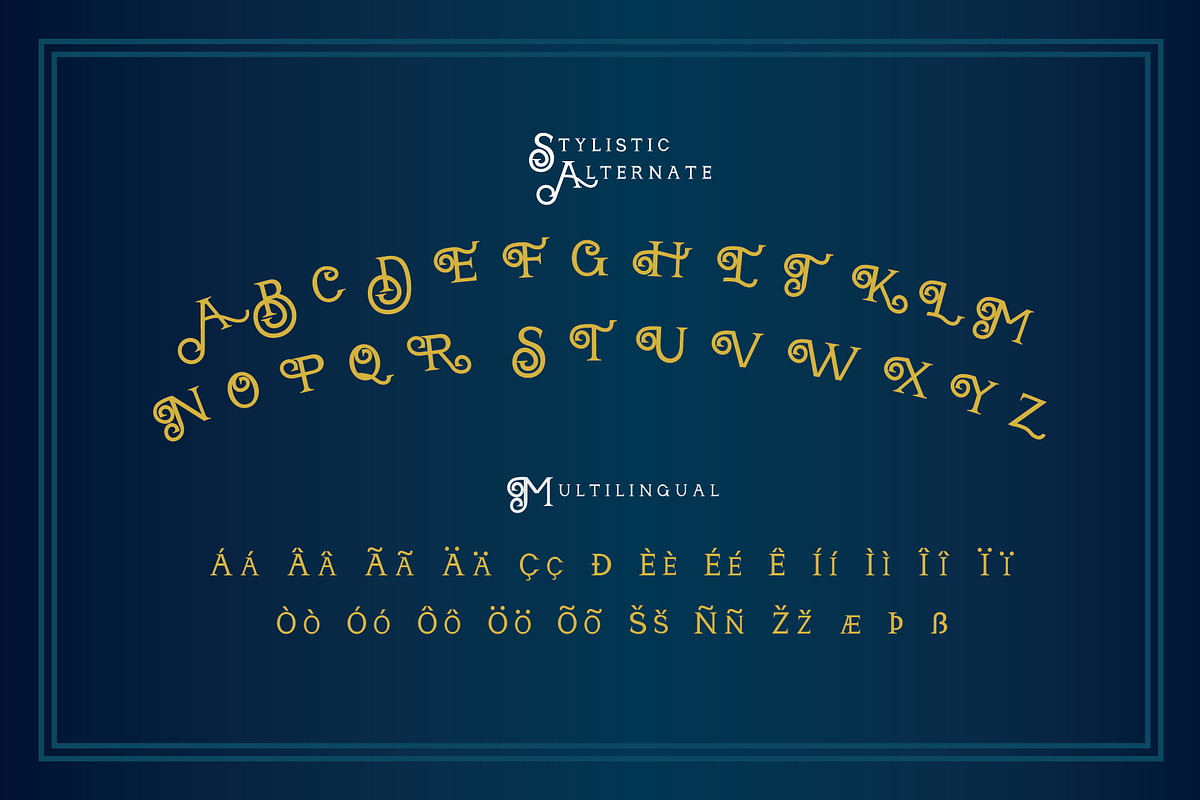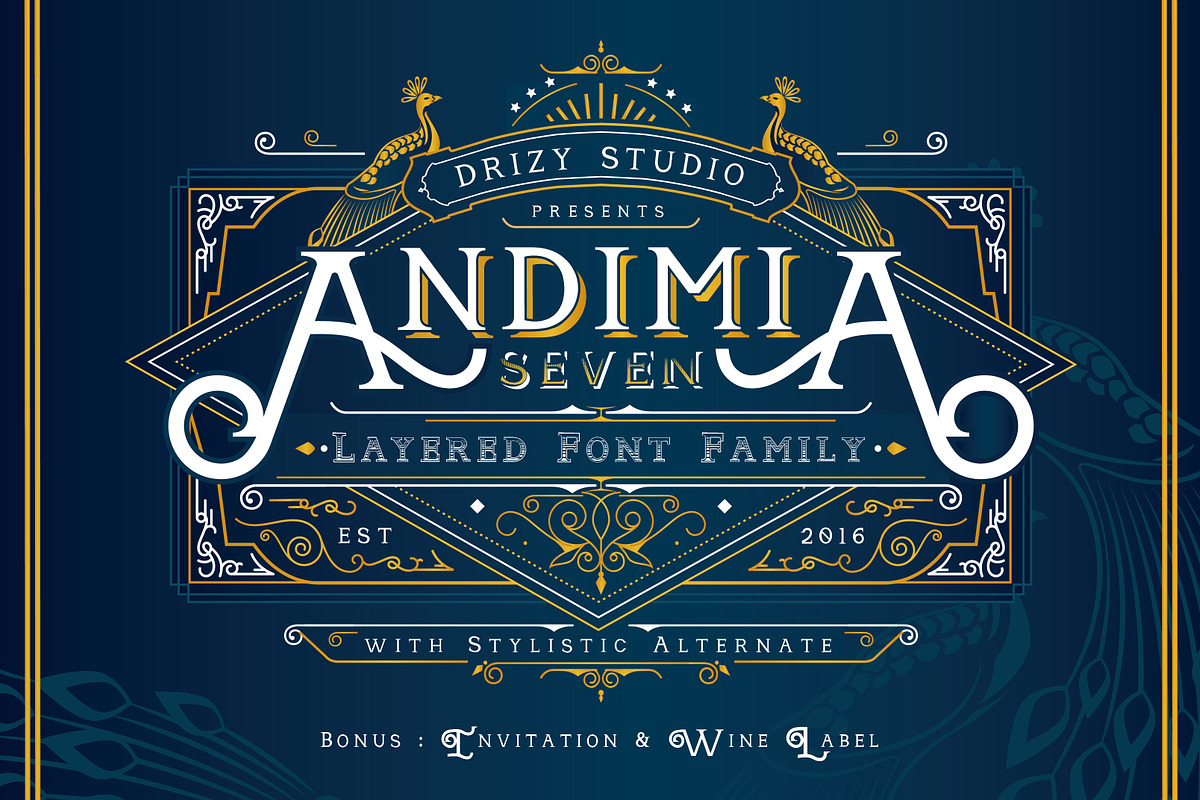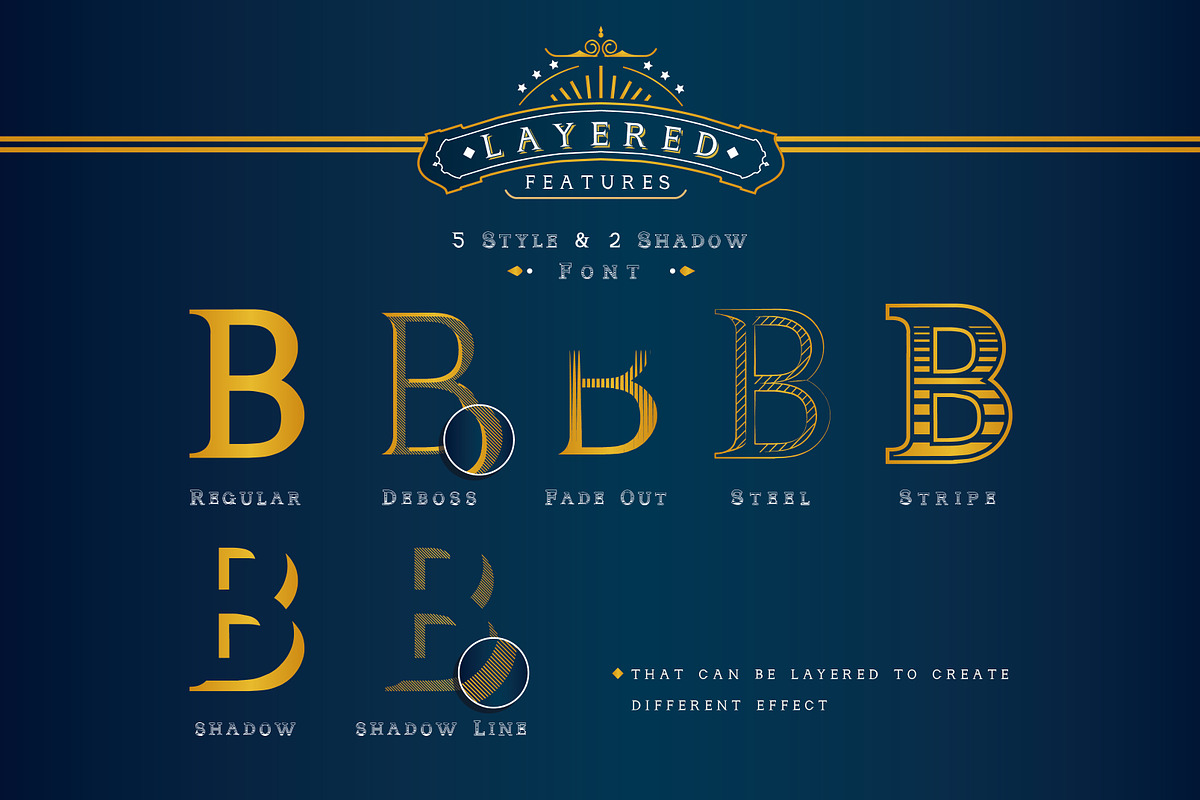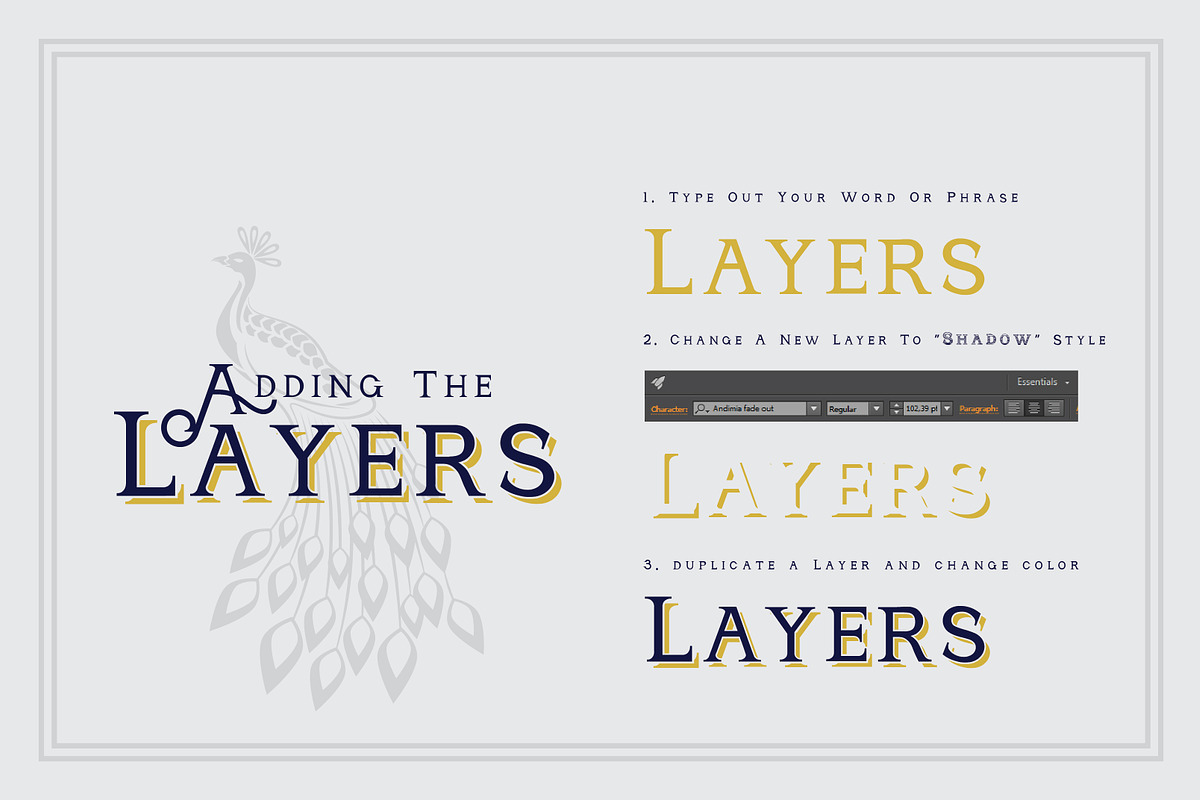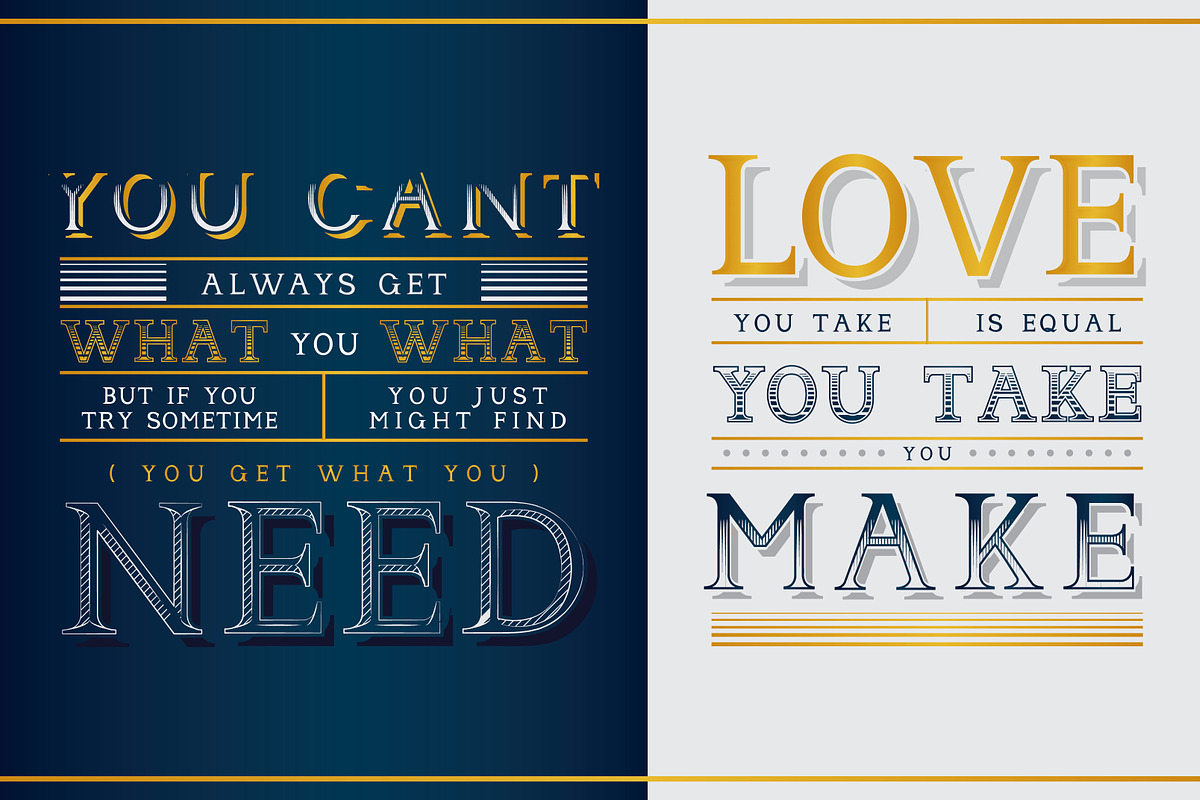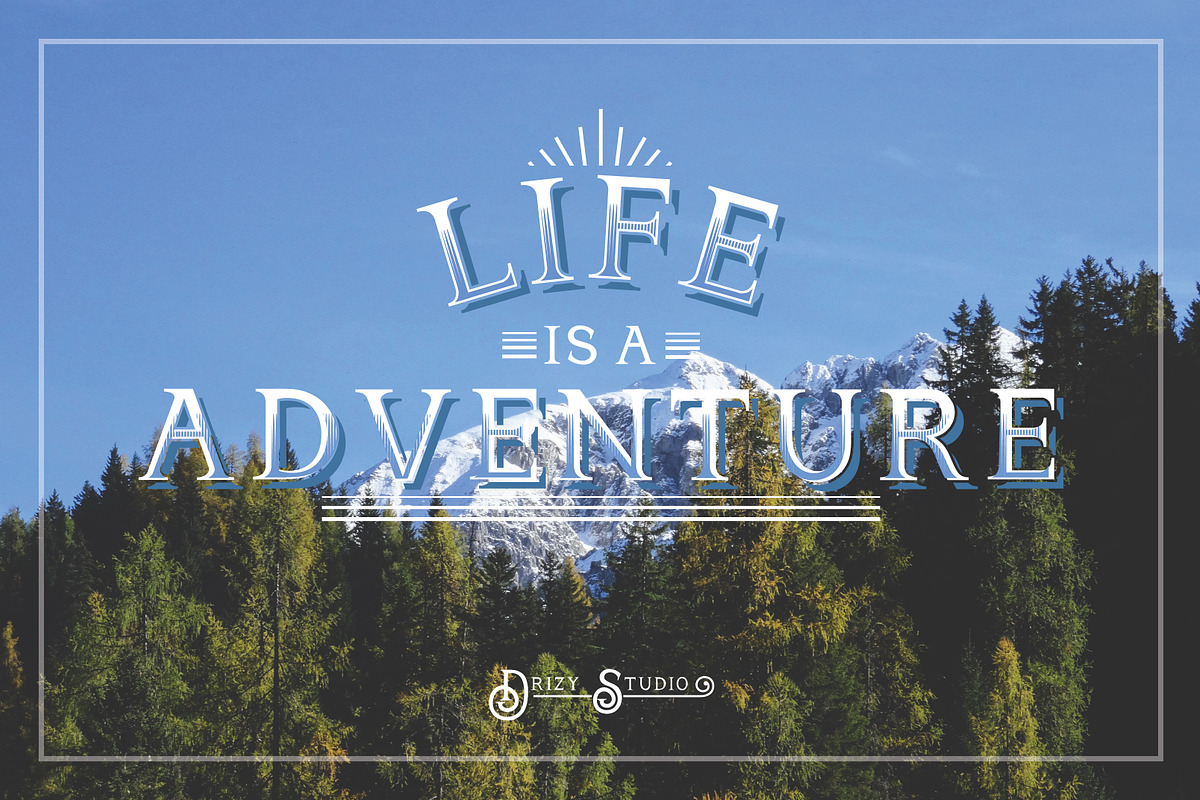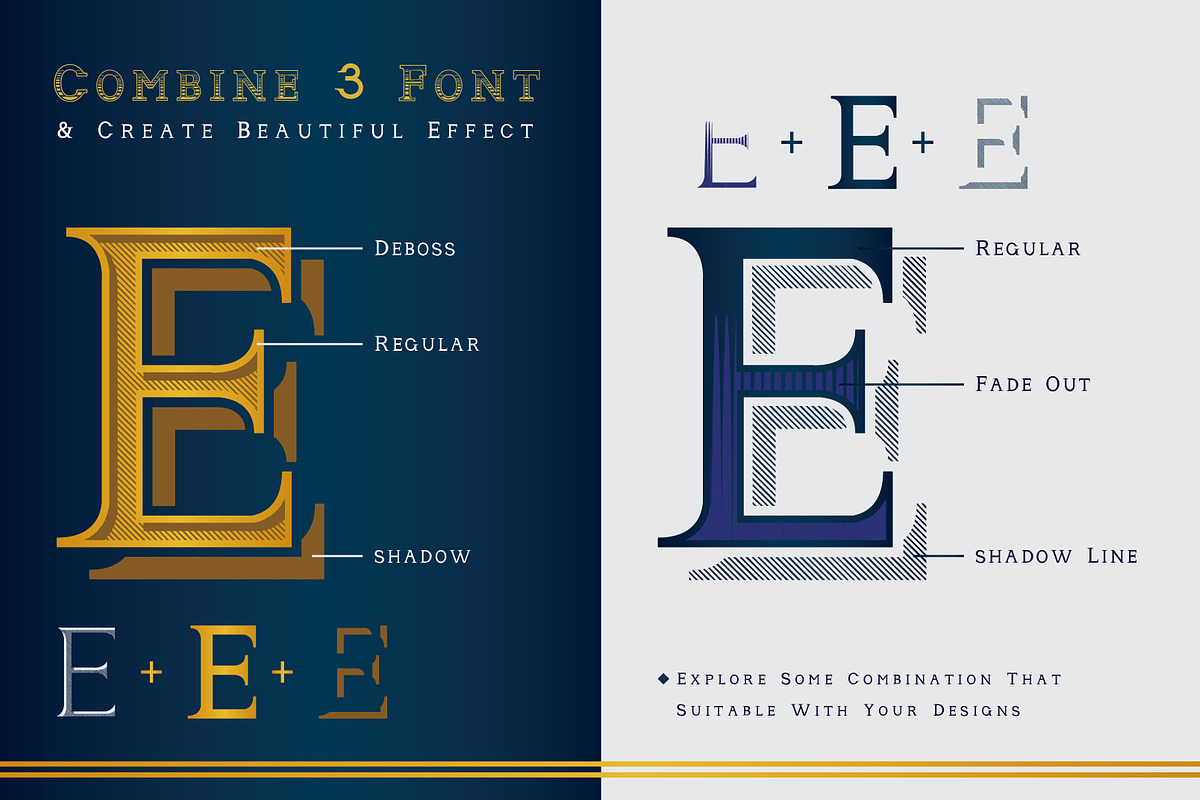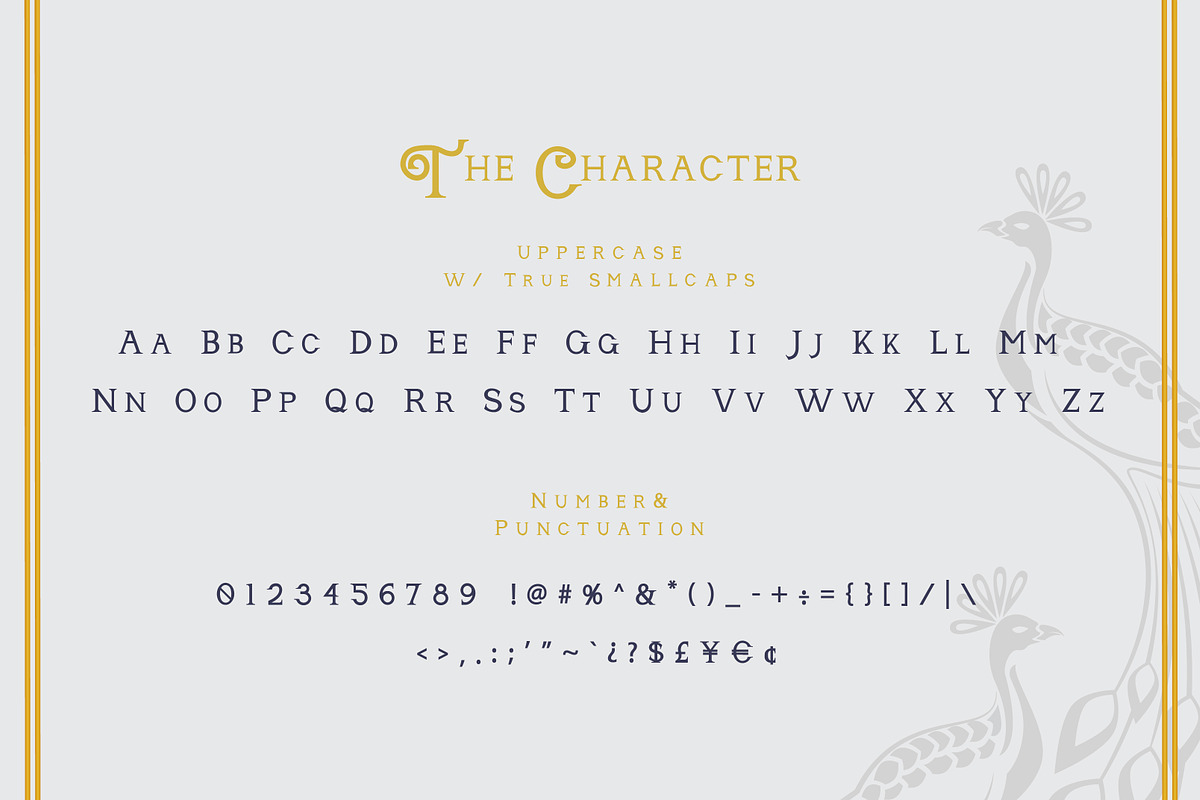
Andimia Layered Fonts Family
Andimia Layered Fonts Family by Drizy is a font selected for branding, posters, packaging, typography.
- The font comes with all the basic Latin glyphs, punctuation, and numerals.
- Create your own style as you want with 7 Layers, Stylistic Alternates that Allows you to mix and match pairs of letters to fit your design,
Andimia Layered Fonts Family by Drizy fits naturally into Branding, posters, packaging, typography.